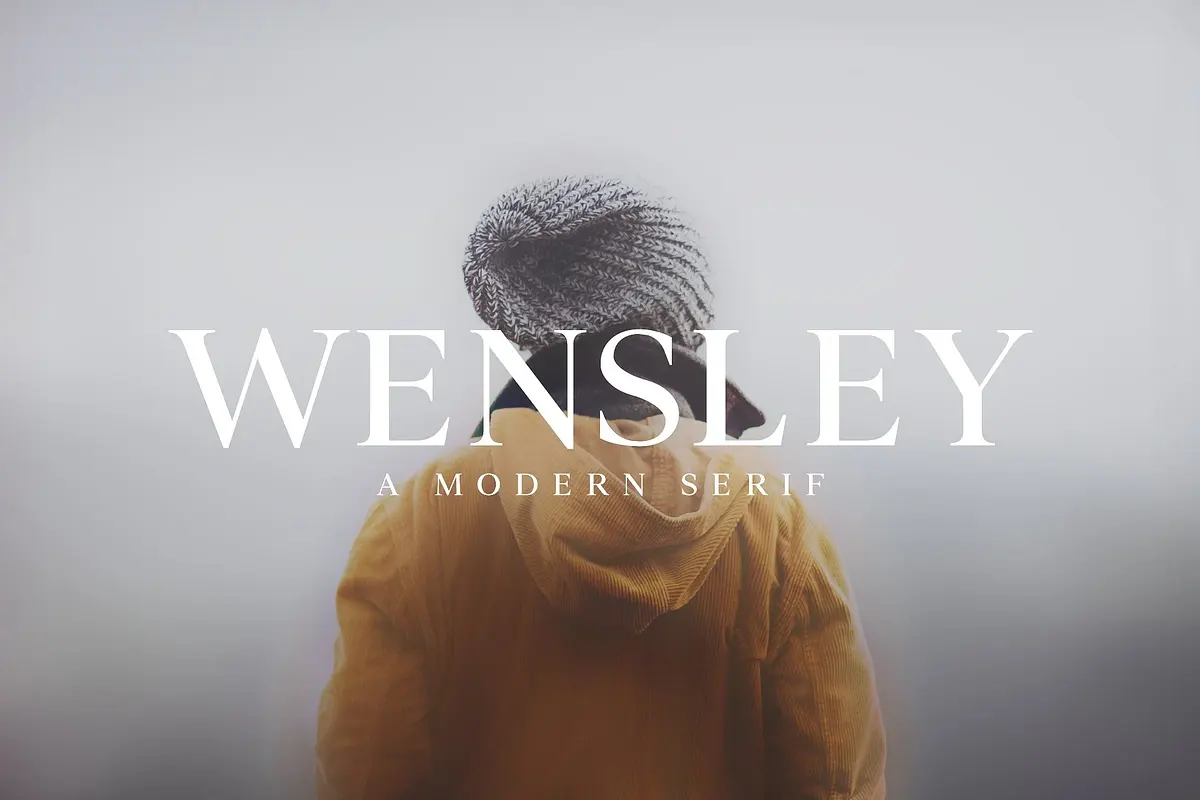
Please note, you must purchase this font for commercial use. However, you can easily download Wensley Modern Serif Font Family Free Download for personal use and testing purposes. Wensley Modern Serif Font Family is a sleek and versatile serif typeface designed with modern elegance in mind. This font family includes a variety of weights, offering flexibility for a wide range of design projects, from branding and editorial design to websites and advertisements. With its clean lines, balanced letterforms, and refined serifs, Wensley Modern Serif Font Family Free Download ensures your typography looks both professional and stylish. Whether you're designing a high-end brand identity, a sophisticated editorial layout, or a minimalistic logo, this font family will enhance the elegance of your work. Download Wensley Modern Serif Font Family Free Download today and explore its potential before opting for a commercial license.